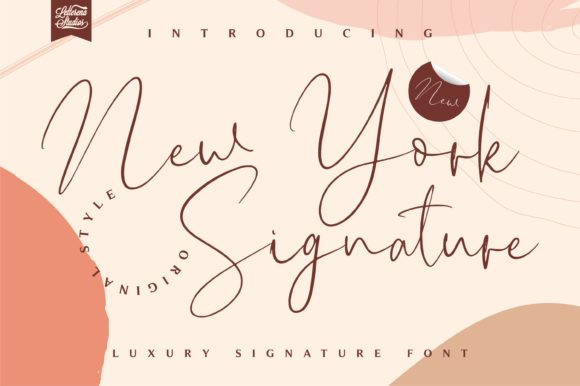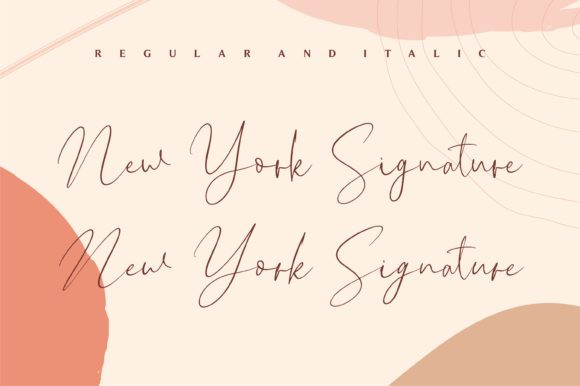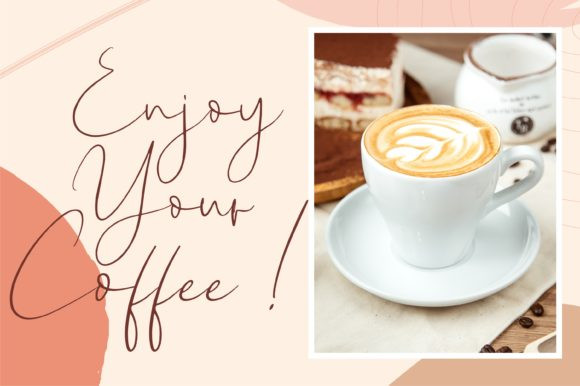
New York Signature Font
New York Signature is a romantic and luxurious handwritten font. Fall in love with its incredibly versatile style and use it to create spectacular designs!https://www.creativefabrica.com/product/new-york-signature/